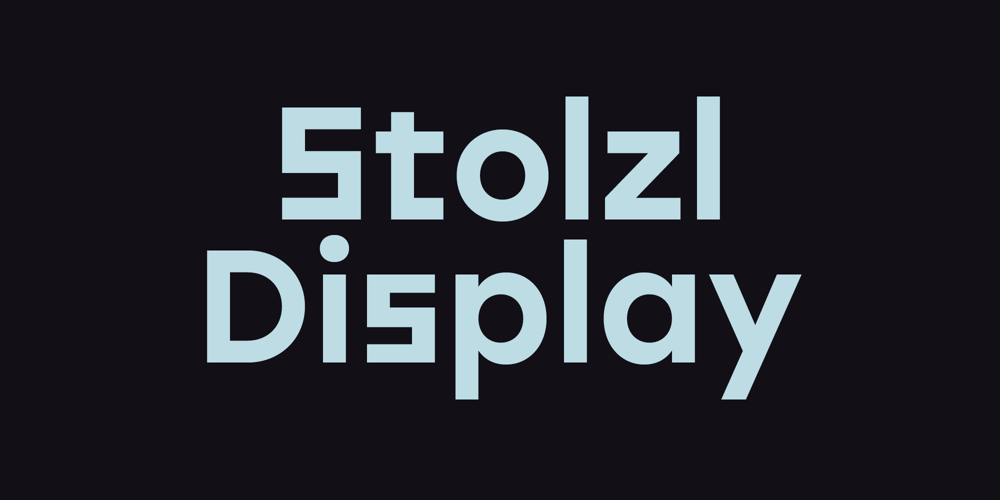
Stolzl Display
Stolzl Display font
Stolzl Display Font Family was designed by Mariya Lish and published by Inhouse Type. Stolzl Display contains 6 styles and family package options. Stolzl Display is an original font family designed for headlines, titles and subtitles. Based on the combination of contrasting shapes, the harmony of form and rhythm is fundamental to the design. Inspired by Bauhaus, Stolzl represents, not just the significant influence of this “crucible of modernism”, but aims at capturing its original idealism, commitment to creativity and experiment driven philosophy. Details include six weights, Cyrillic, 480 characters, alternative glyphs, manually edited kerning and Opentype features. Named after Gunta Stölzl, the Bauhaus’s only female master, Stolzl Display is the first subfamily of the Stolzl font collection to be released this year.